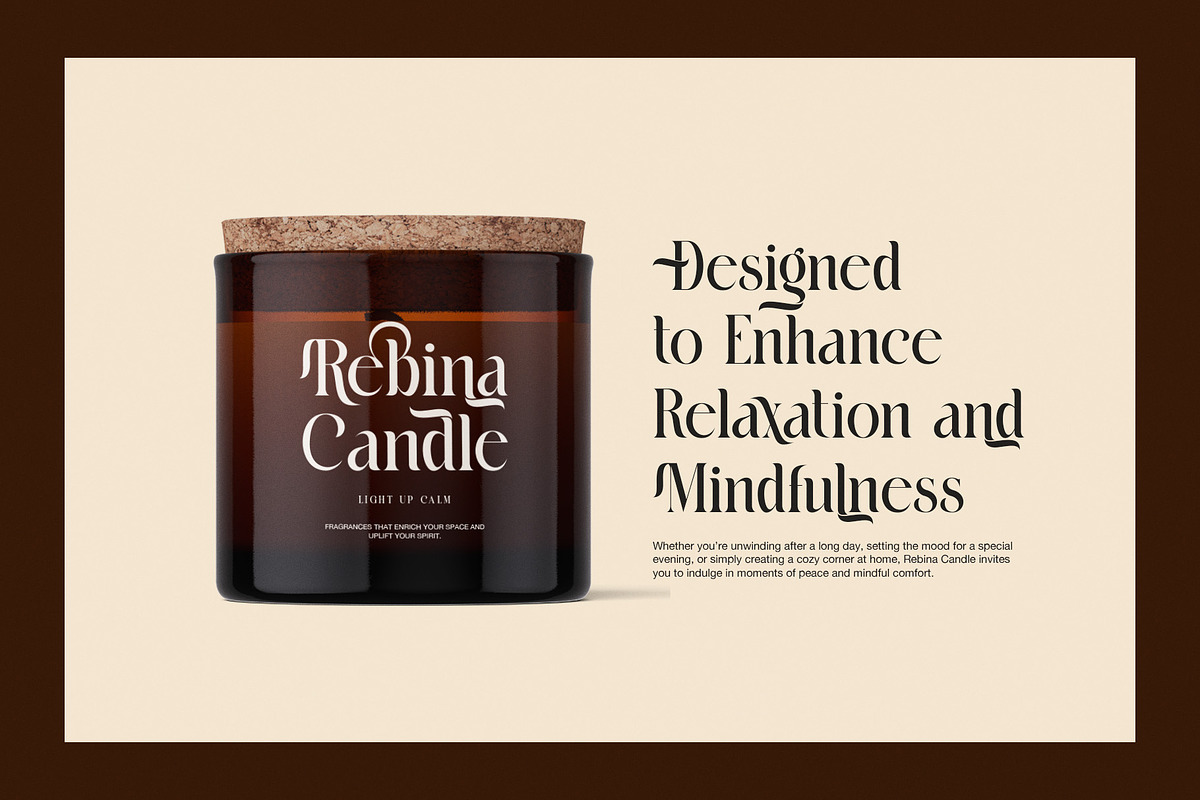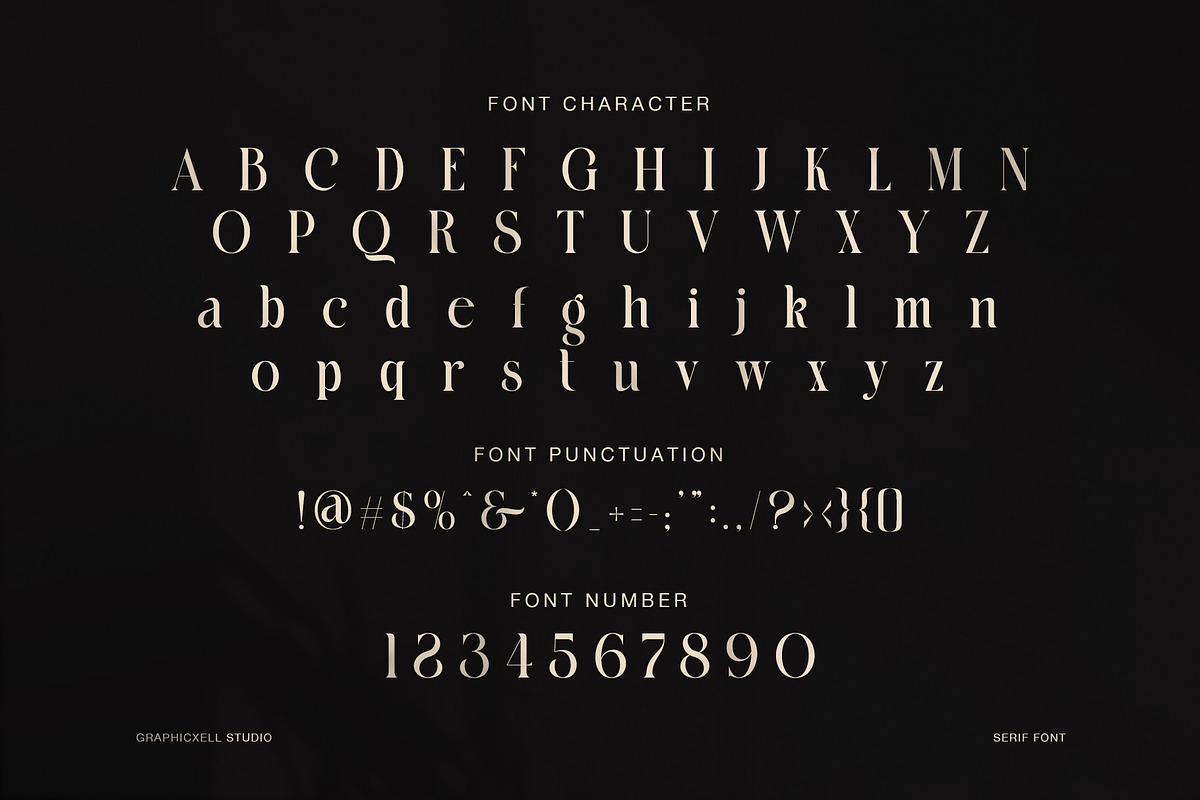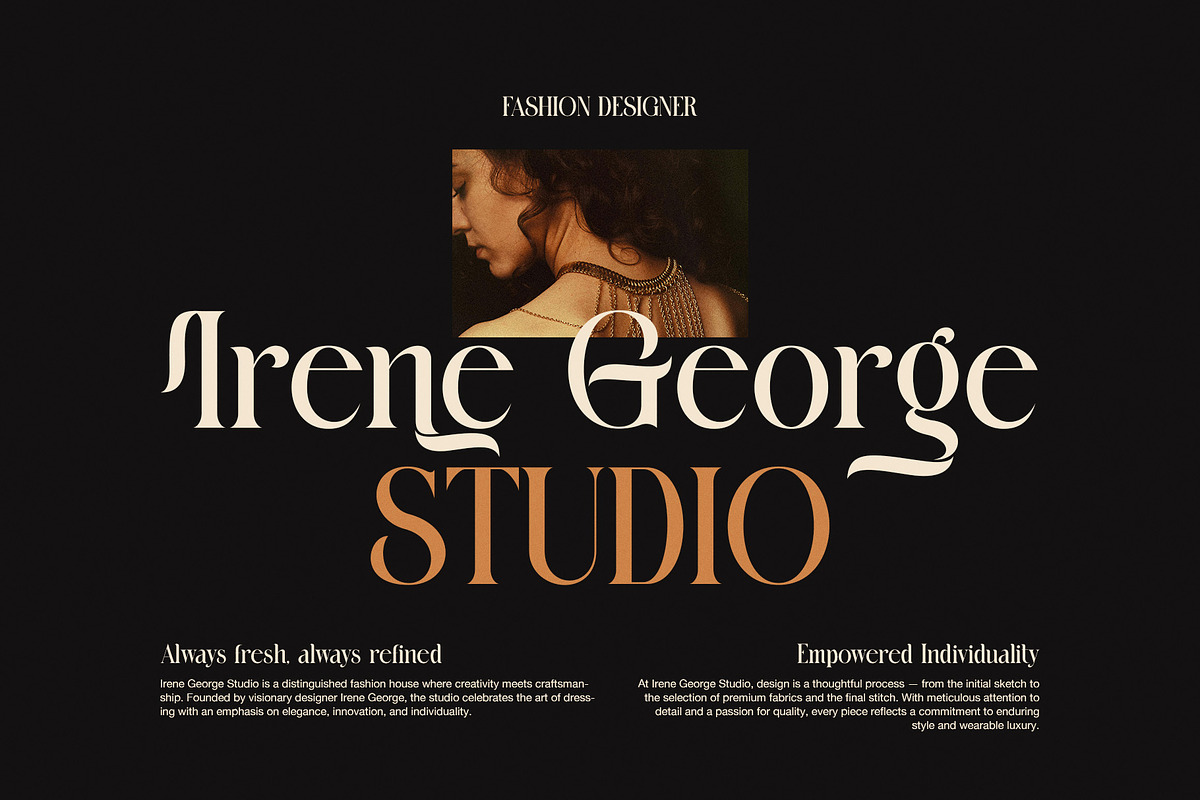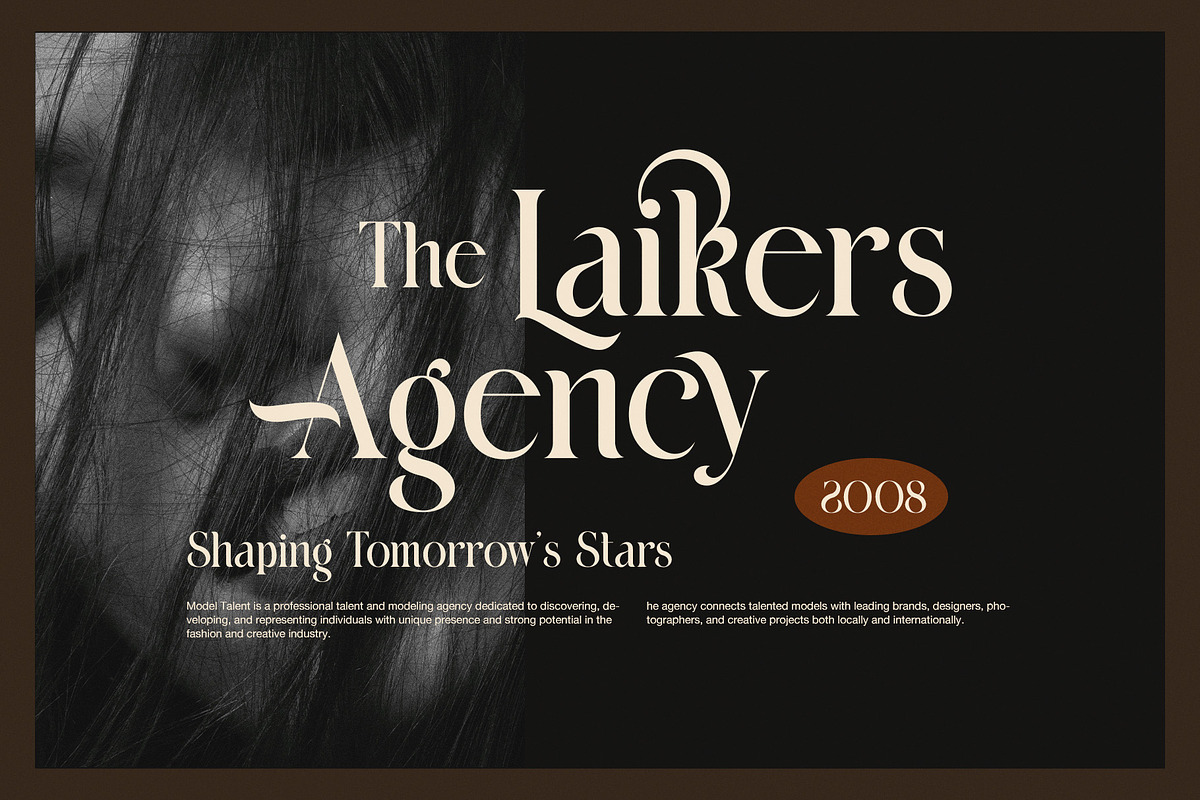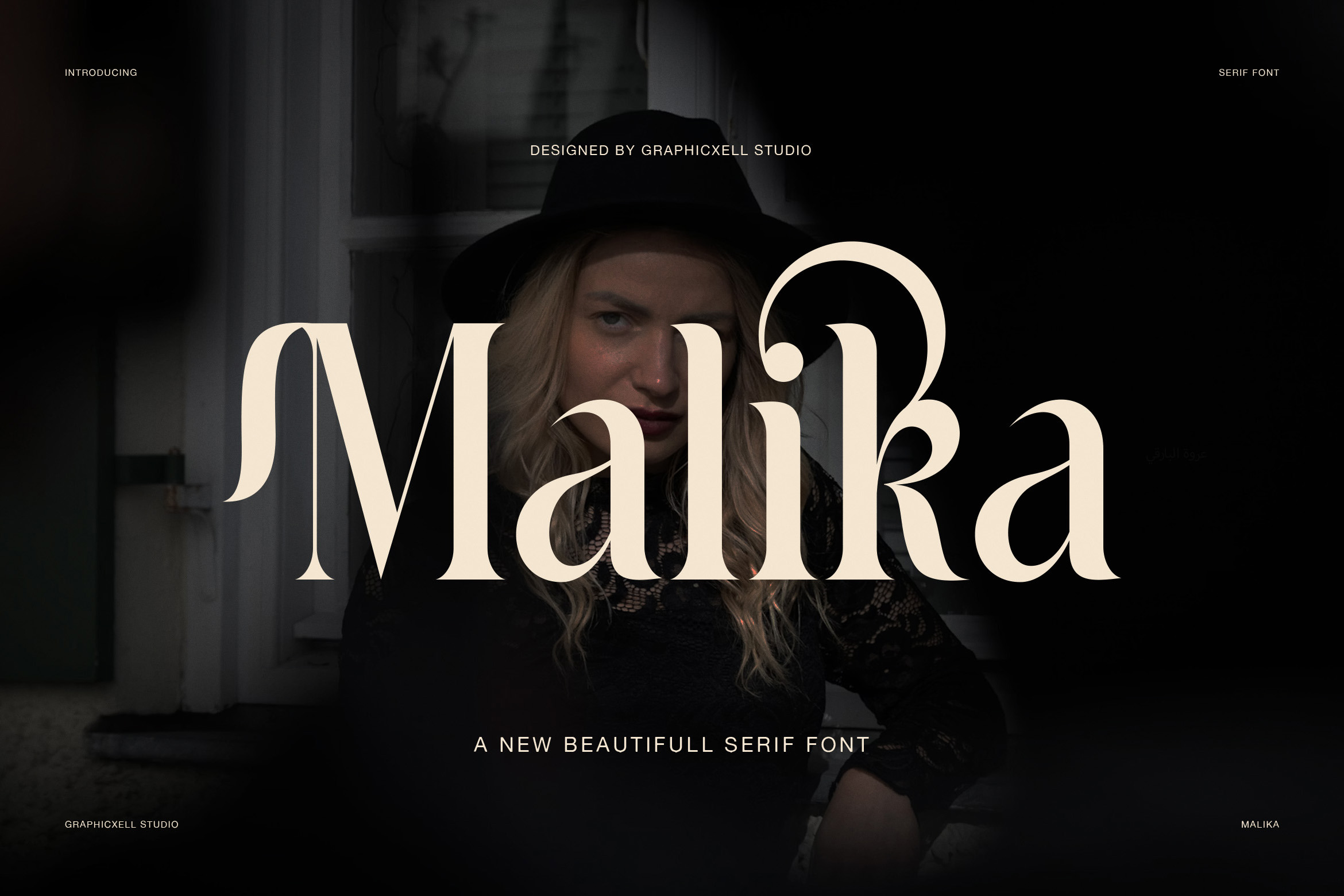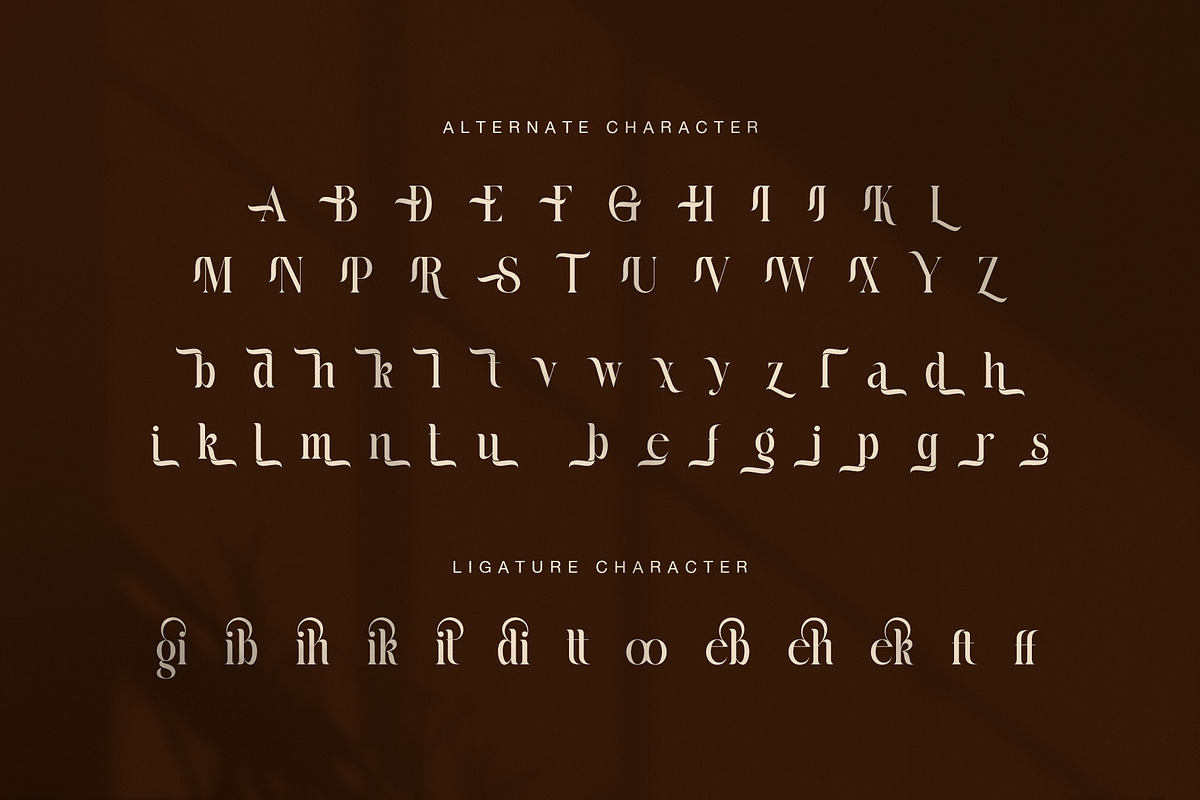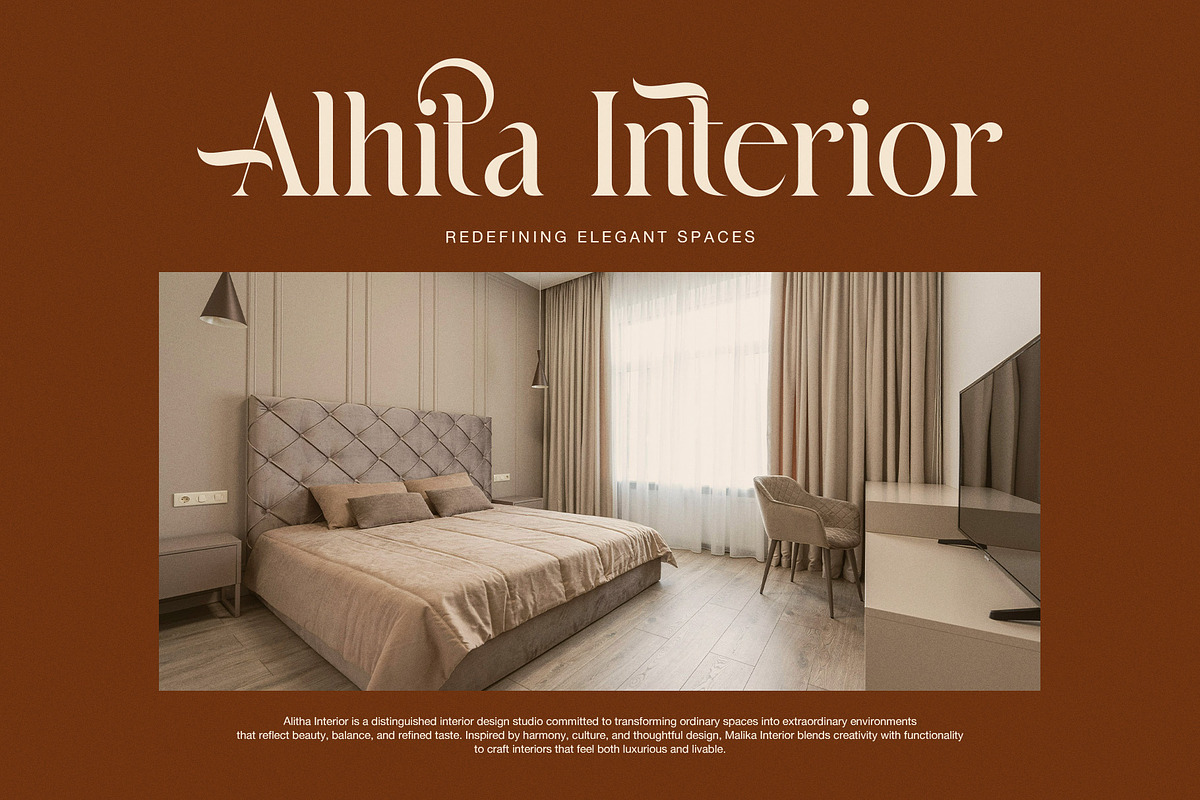
Malika Elegant Ligature Serif Font
A Refined Serif Font with Artistic Detail
Malika is an elegant ligature serif font made for designers who want beauty, style, and strong character in one typeface. Its letterforms feel graceful, high-end, and expressive. At the same time, the structure stays clear, so the font remains useful for both branding and editorial work. Because of this balance, Malika feels luxurious without losing readability.
The main shape of this font combines sharp contrast with soft curves. Several characters feature flowing terminals, refined stems, and decorative strokes that give the font a stylish voice. In addition, the uppercase letters look poised and dramatic, while the lowercase letters feel delicate and charming. This contrast helps Malika stand out in premium design layouts.
Designed for Elegant Branding
Malika works especially well in fashion, beauty, jewelry, perfume, candle packaging, interior branding, boutique logos, and magazine-style layouts. As shown in the previews, the font performs beautifully in large headlines, product packaging, and artistic brand presentations. Moreover, its refined rhythm makes each word look polished and memorable.
The ligatures are one of its strongest features. They connect letters in a smooth and decorative way, which gives the text a custom and handcrafted feel. Likewise, the alternate characters add more creative options, so designers can shape each title with a unique look. As a result, Malika is perfect for branding projects that need a distinct and luxurious identity.
Why Designers Will Love Malika
Malika is a smart choice for creative work because it offers both beauty and flexibility. It can help a brand feel exclusive, feminine, timeless, and modern at once.
Main features:
Elegant serif style with high contrast
Beautiful ligature and alternate characters
Stylish uppercase and graceful lowercase forms
Ideal for logos, headlines, and premium packaging
Perfect for fashion, beauty, and editorial design
Strong visual impact in large display settings
A Serif Font for Luxury Visuals
If you need an elegant ligature serif font with a fashionable and artistic tone, Malika is a strong option. It brings charm, class, and personality to every composition. Therefore, it is suitable for designers who want a serif font that feels both decorative and professional.